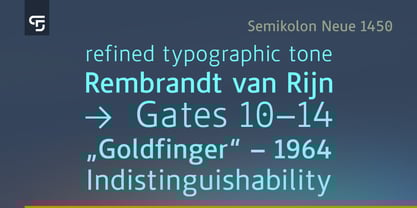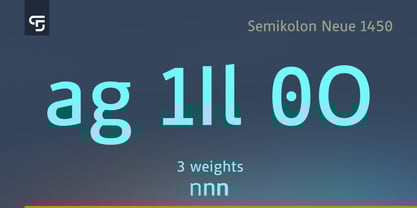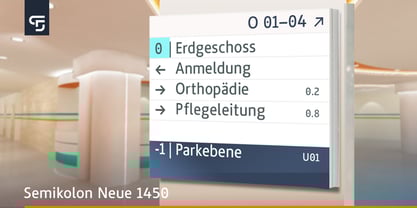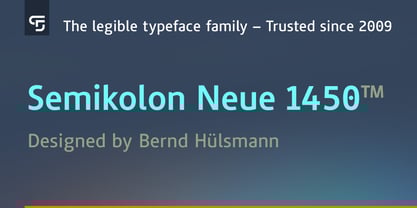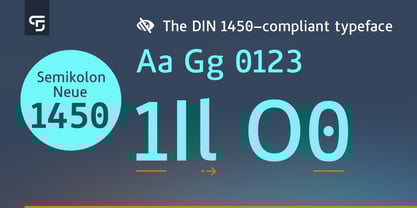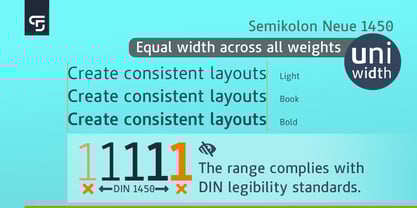
Semikolon Neue 1450
The Semikolon Neue 1450 Font Family was designed by Bernd Hülsmann and published by Semikolon Fonts. Semikolon Neue 1450 contains 3 styles and family package options. More about this family
Semikolon Neue 1450 – The DIN 1450–compliant typeface Semikolon Neue 1450 meets all DIN 1450 requirements and delivers excellent legibility. It is ideal for people with visual or reading impairments, ensuring accessible communication across many contexts. Optimized for public signage and wayfinding systems, where clear and reliable readability is essential. Semikolon Neue 1450 is available in three weights, all fully compliant with the DIN legibility standard.
Semikolon typefaces are characterized by clearly distinguished letterforms. They were developed to minimize confusion between similar characters, thereby supporting reading motivation and the learning process. Thanks to their high legibility, Semikolon fonts are used in numerous books — including publications by Loewe Verlag — as well as in adult education centers, other educational institutions, and learning apps for all age groups. Since 2009, the German Federal Association for Literacy and Basic Education has been using Semikolon Plus, a typeface from the Semikolon family, across various media for reading materials as well as informational and teaching resources in adult education. Learners in literacy courses particularly benefit from the fonts’ excellent legibility and clearly designed letterforms. The name “Semikolon” is derived from the punctuation mark of the same name (Greek for “half colon”), which separates sentence parts with deliberate weight—reflecting the consciously differentiated and clearly separated letterforms of Semikolon typefaces.